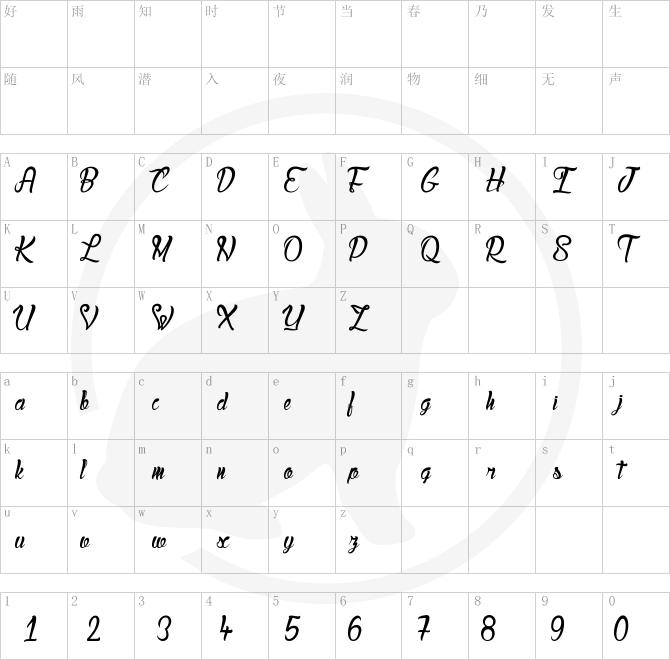
- Font Name:Lady Bohemia
Lady-Bohemia.ttf is a very beautiful artistic font, Lady-Bohemia.ttf is widely used in the design and printing of various books and pictures,Lady-Bohemia.ttf has a strong visual impact,Lady-Bohemia.ttf is a commonly used font in newspapers, magazines and books, and is used in posters, e-commerce Poster design, store design, logo design, font design and other fields.Lady-Bohemia.